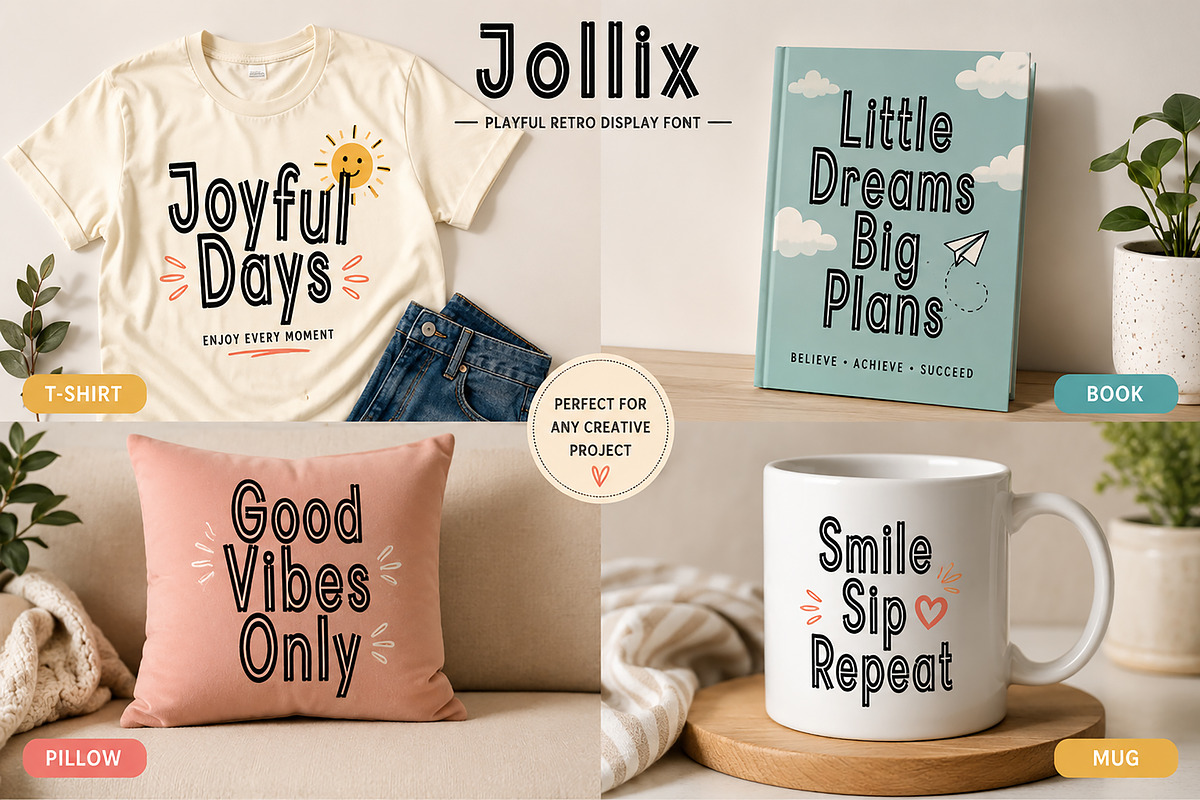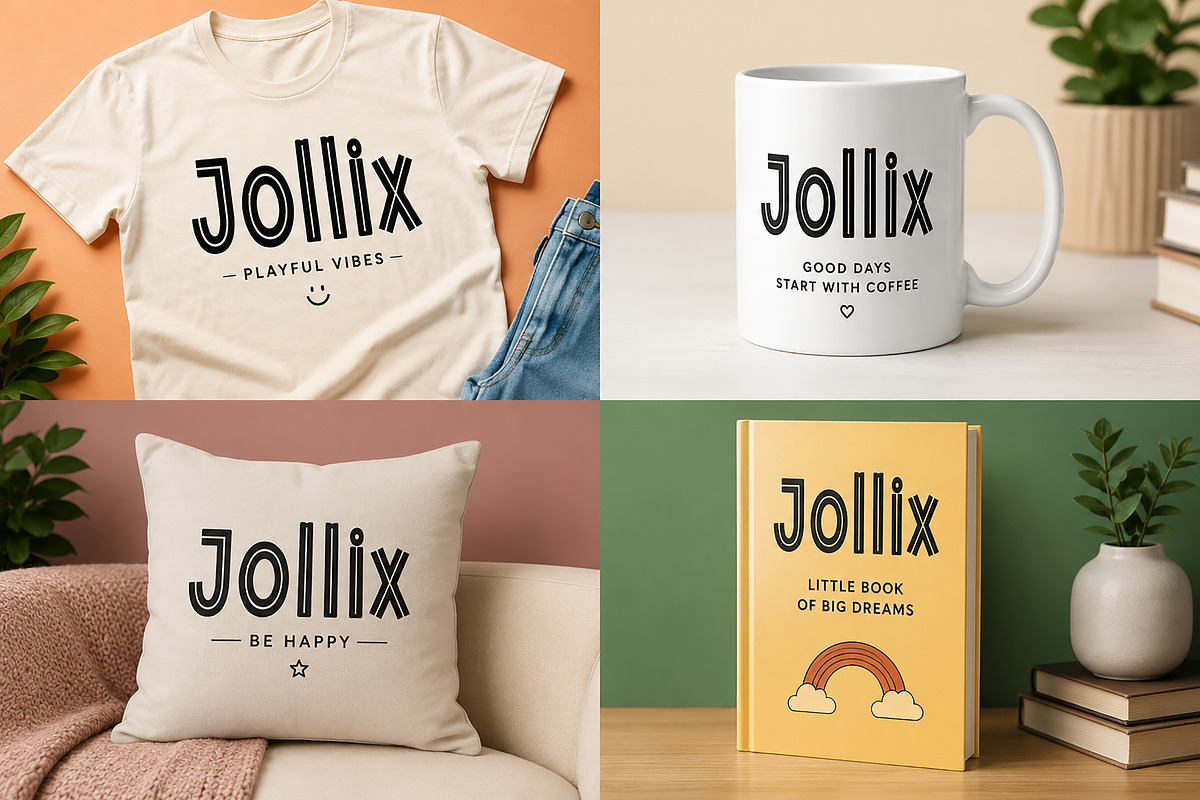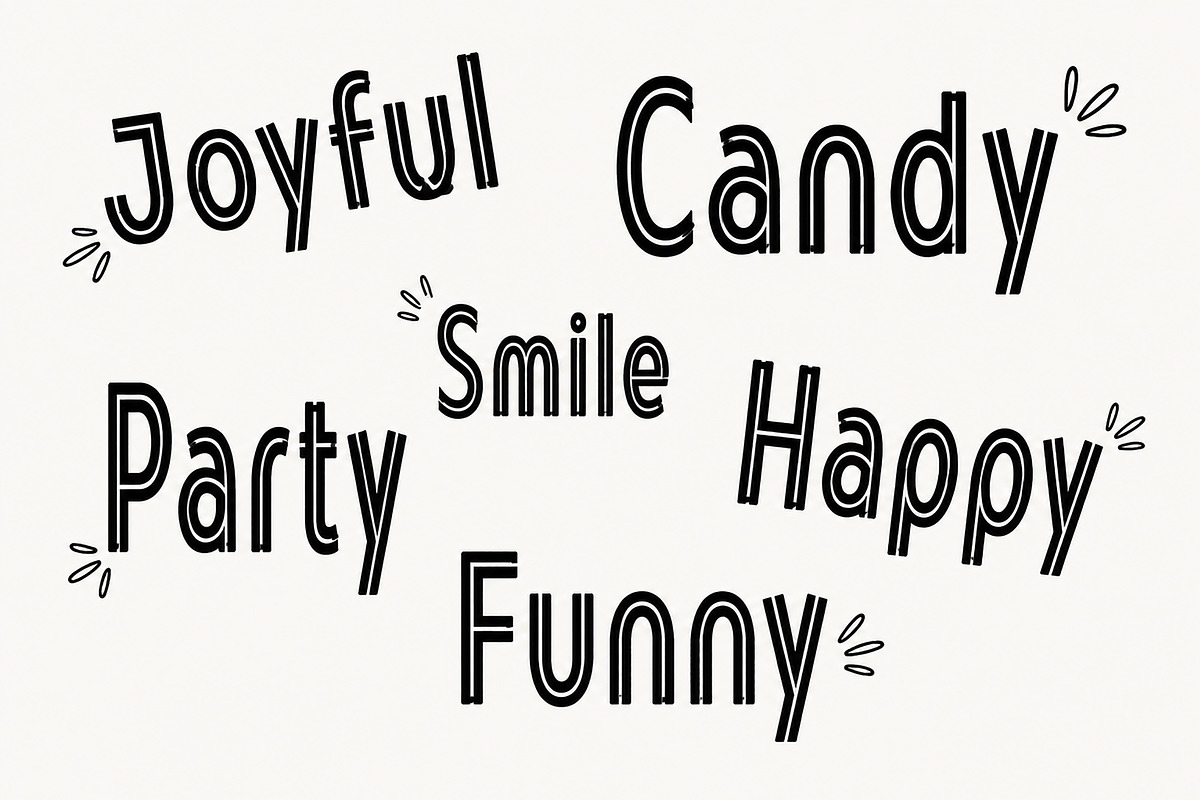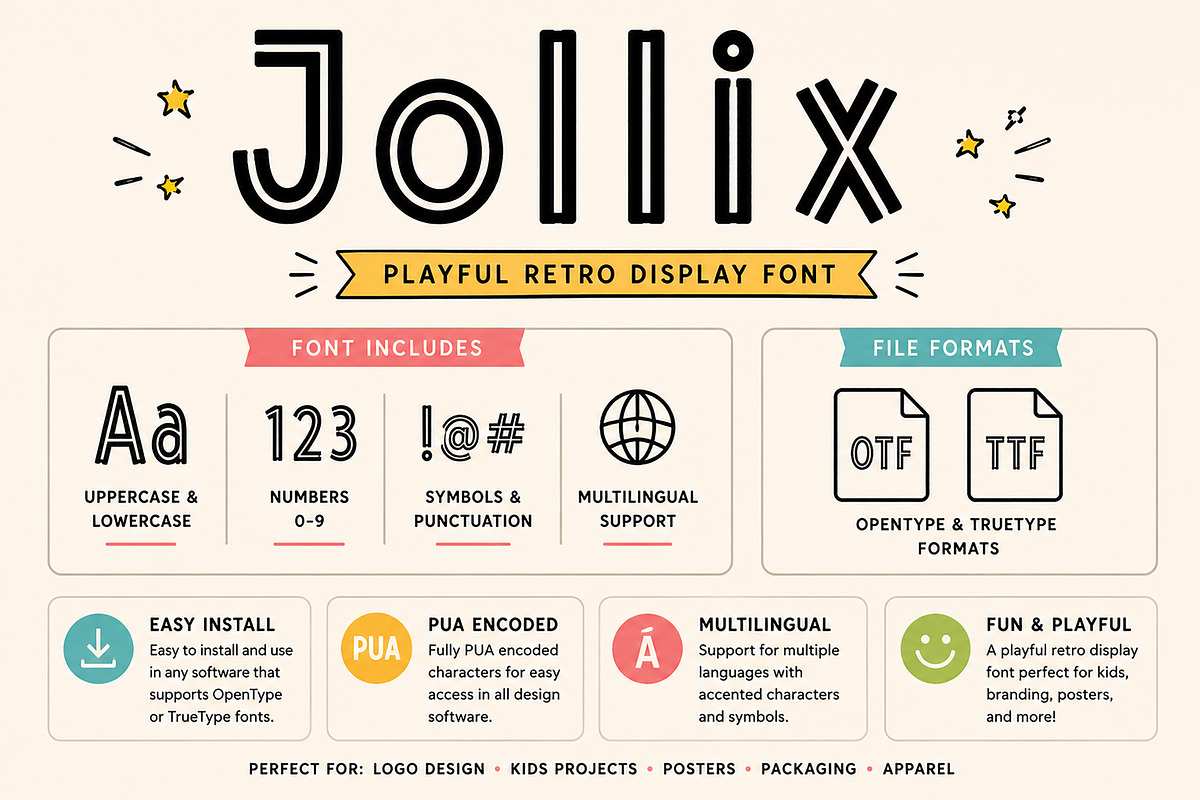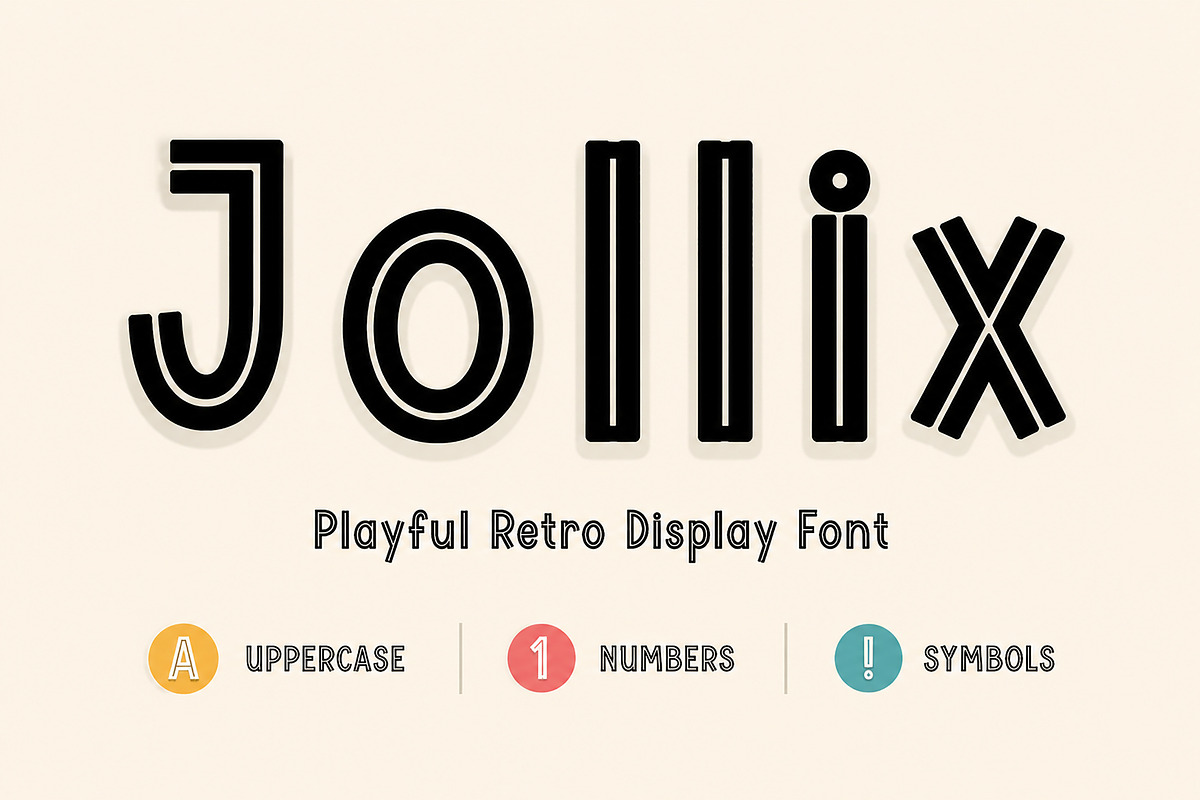
Jollix
Jollix is a playful retro display font with a bold, cheerful, and eye-catching personality. Designed with a unique decorative touch, this font brings a fun and energetic vibe to any creative project. Its stylish curves and quirky letterforms make it perfect for designs that need a joyful and standout look.
Whether you're creating branding, posters, packaging, apparel, social media graphics, or kids-themed projects, Jollix adds charm and creativity instantly.
Uppercase Letters
Lowercase Letters
Symbols
Branding
Kids Projects
Posters
T-shirt Design
Mug Design
Stickers
Fun Quotes
Craft Projects
Bring fun, retro charm, and playful energy into your next design with Jollix.